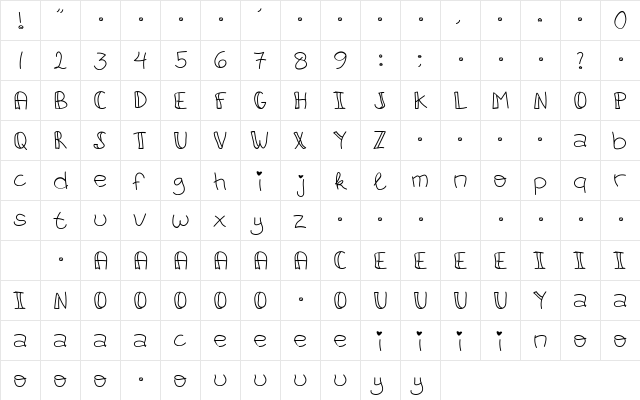
LittleAliyya Regular
| Foundry | hastype studio |
| Designer | Rinaldo Hasibuan |
Design Context for LittleAliyya Typeface
LittleAliyya is a composed and adaptable typeface that performs quietly and consistently across a wide range of design contexts.